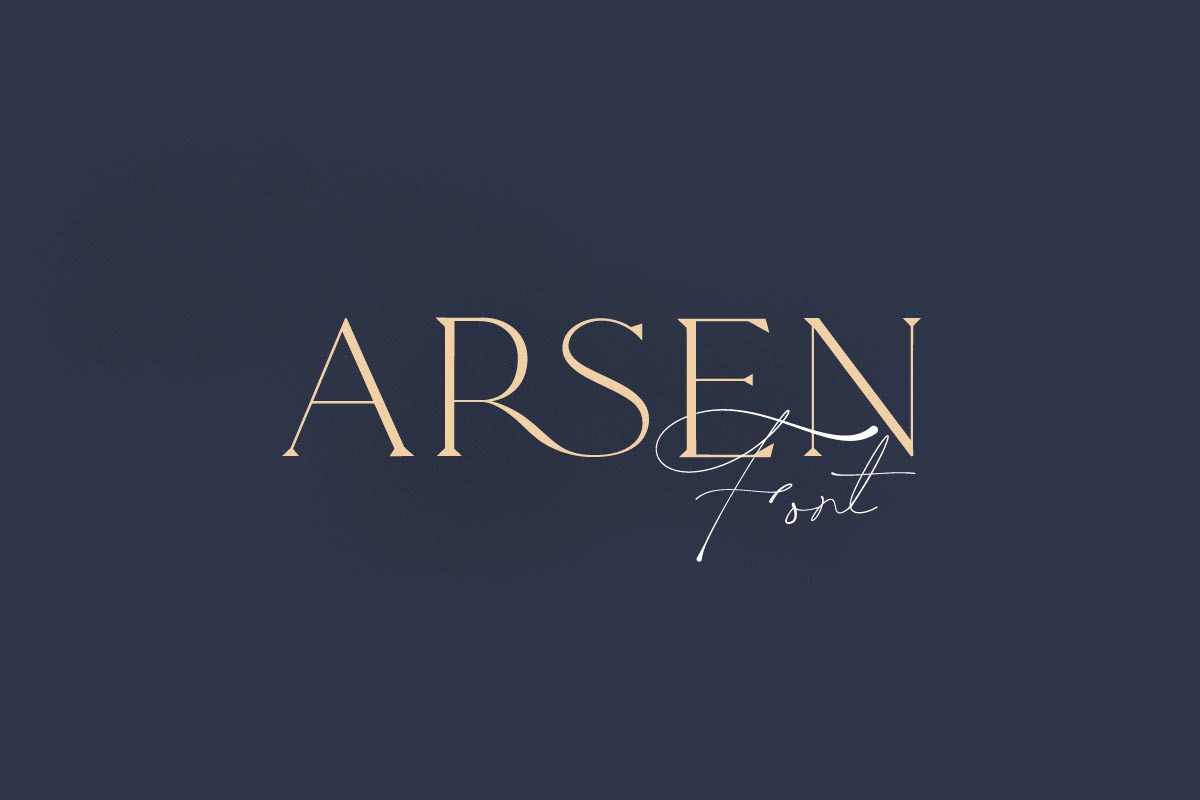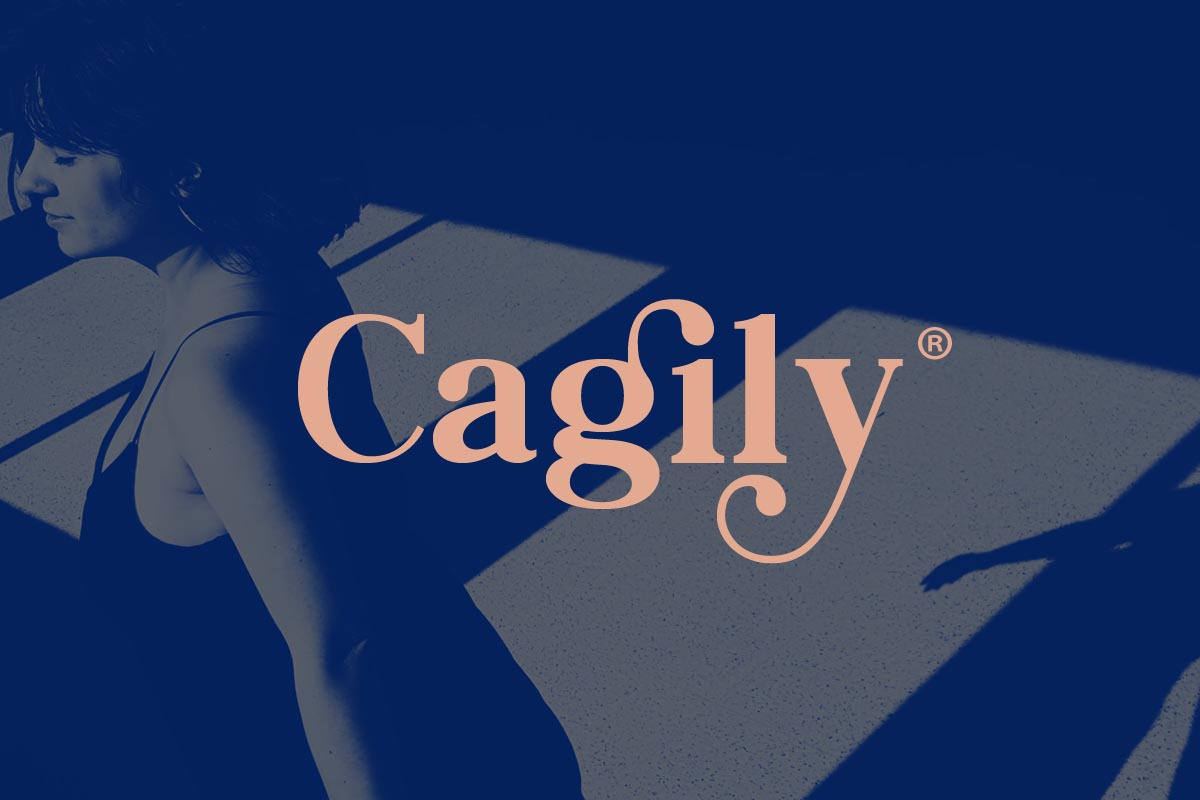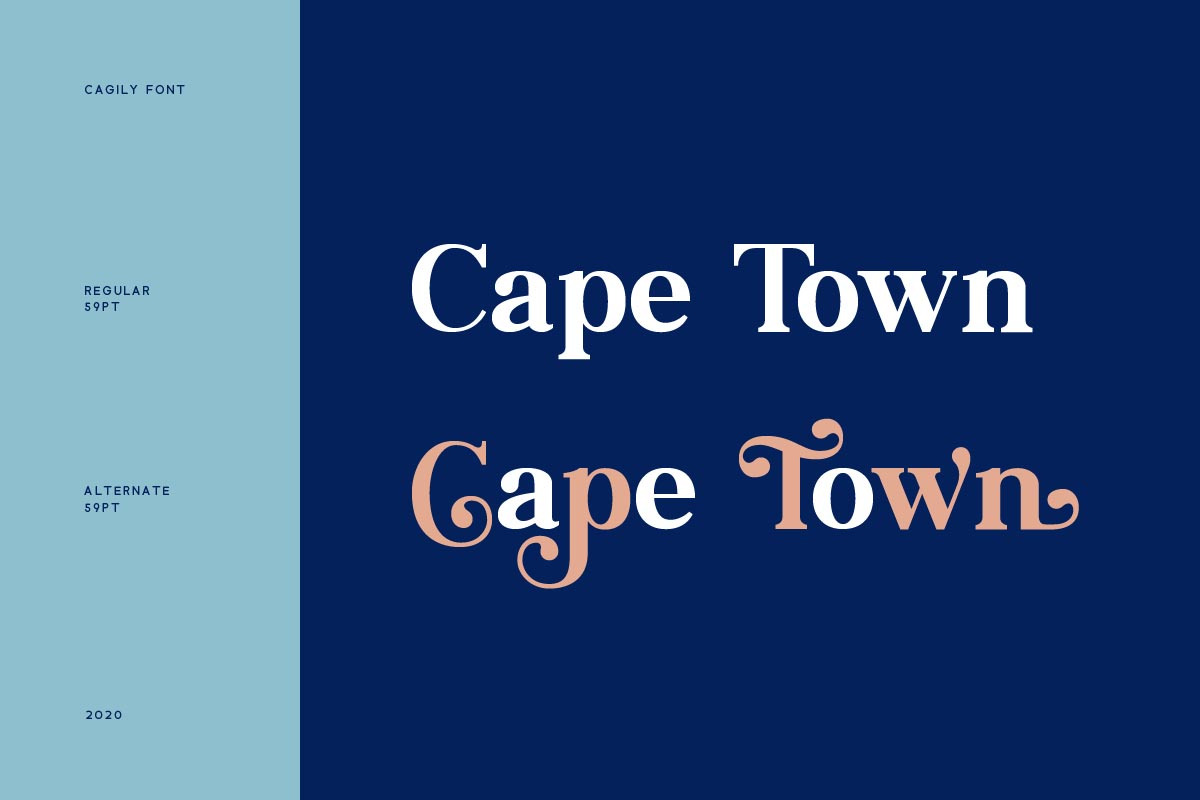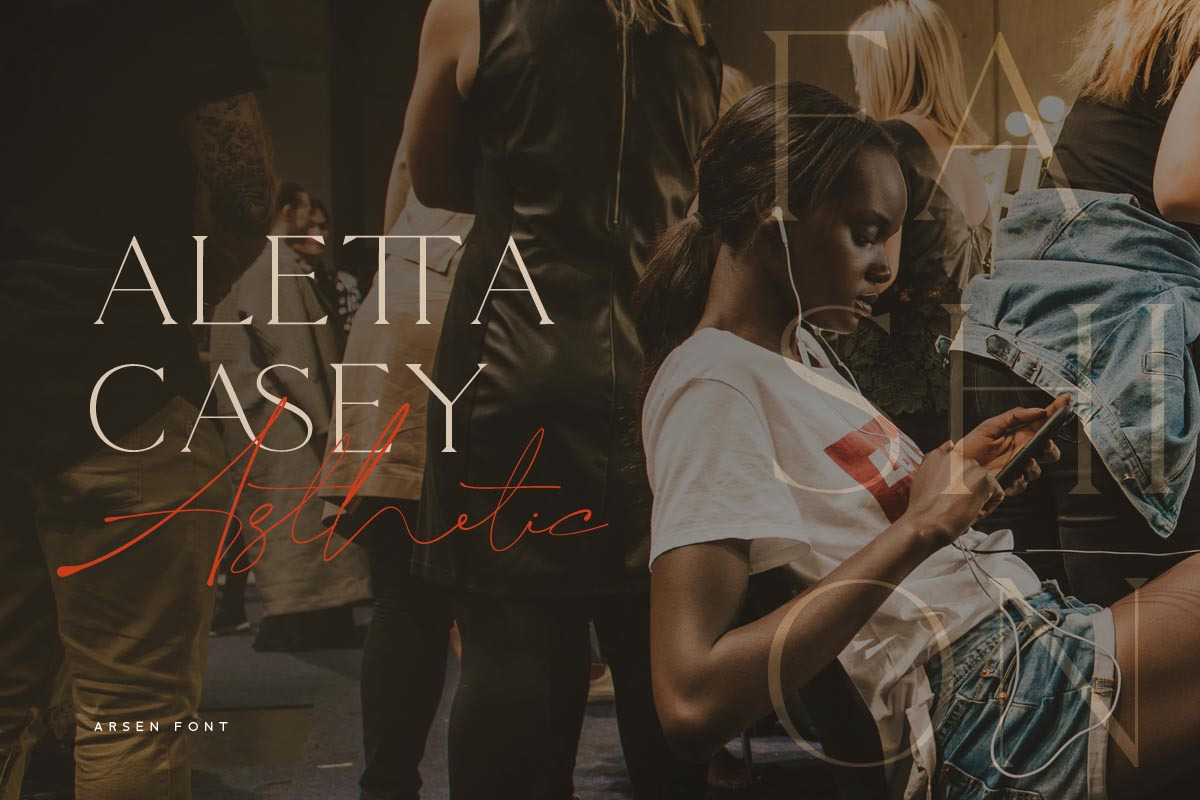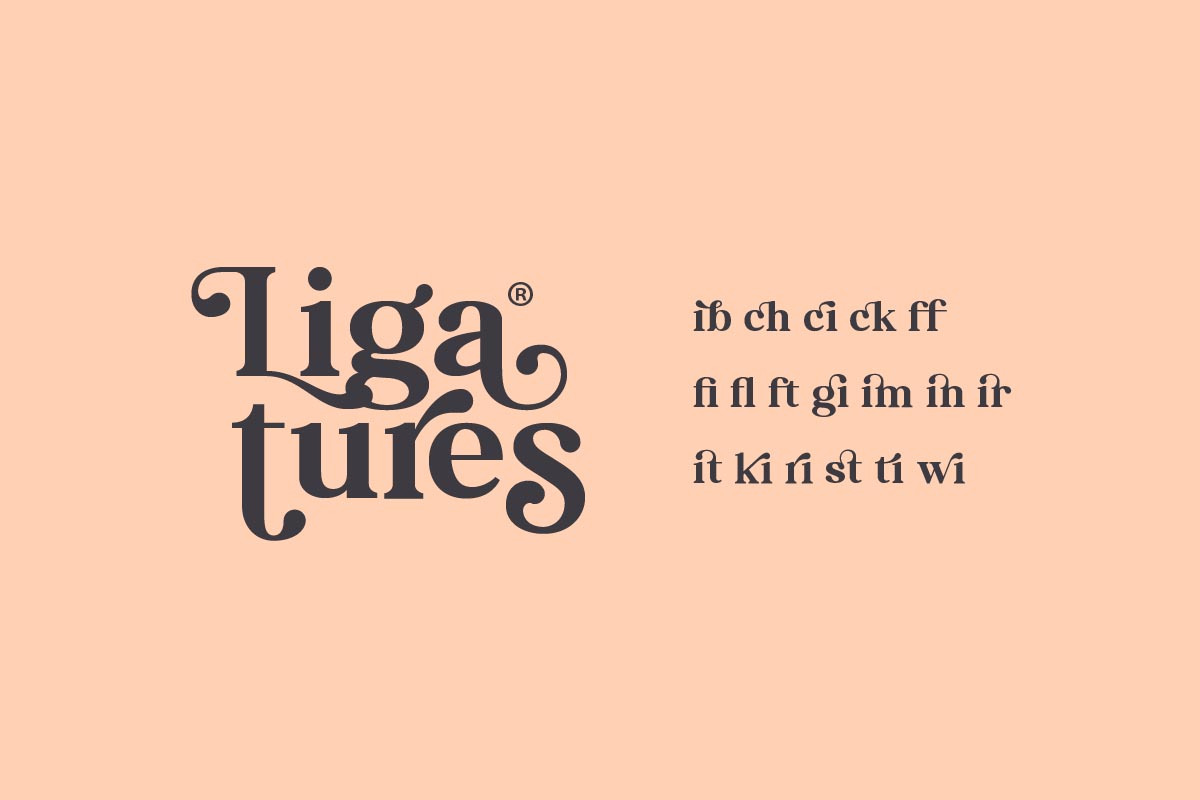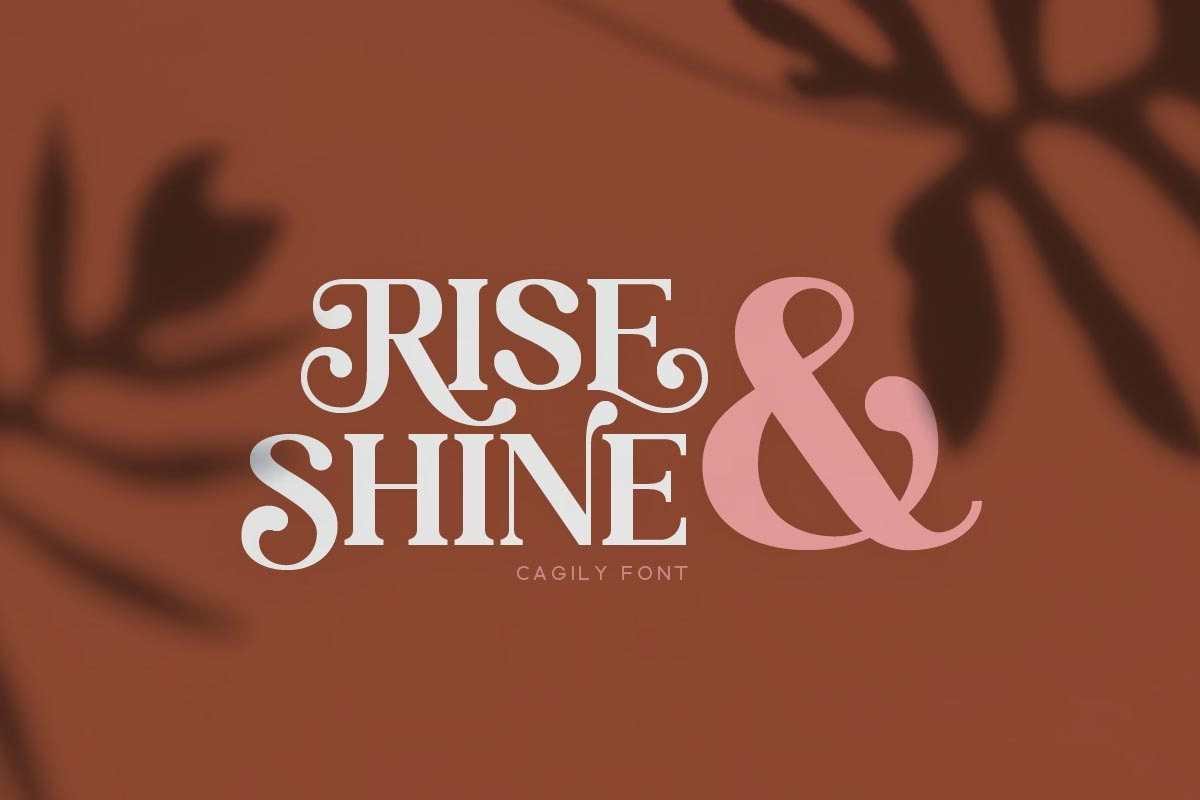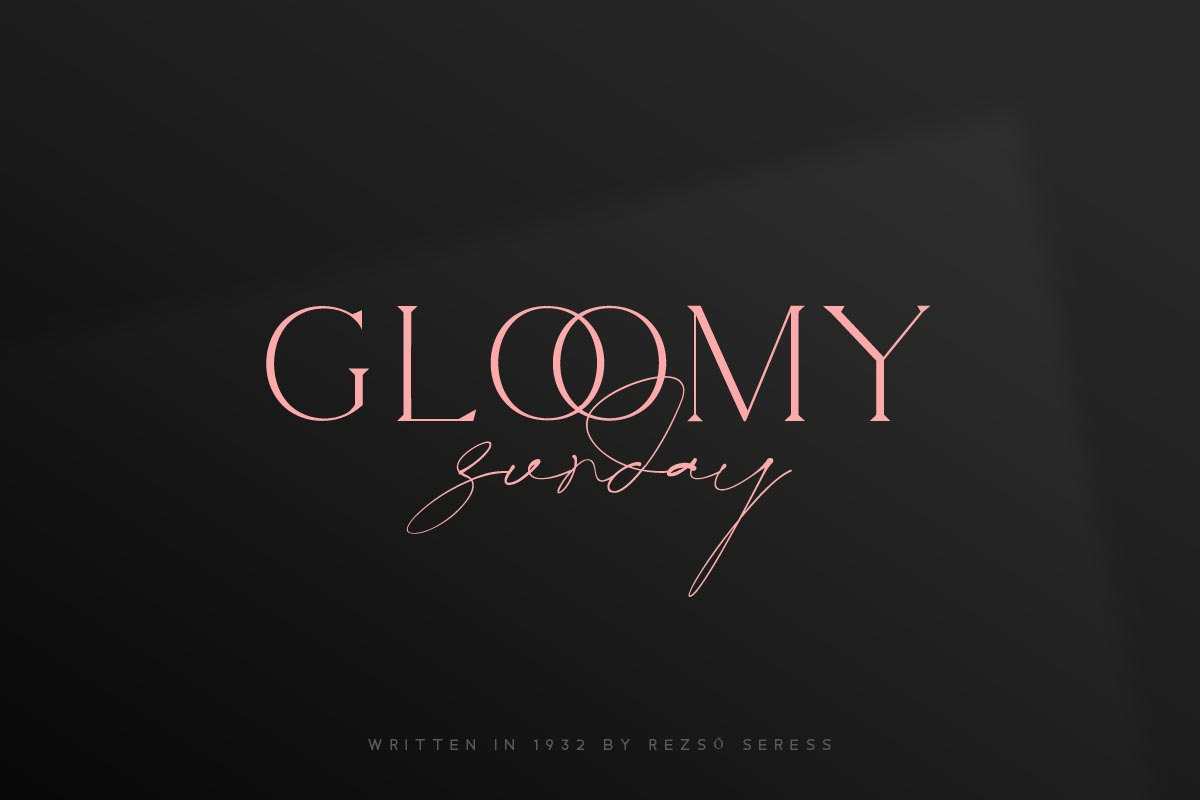
Introducing Minimalist Font Bundle • 80% OFF
Not just contain serif style font, this bundle also contain modern script fonts. Just put the font pair into your project and your design will looks super awesome.
- Cagily:
- Arsen:
- Hi Aline:
- Lavagne:
- Claire:
- Serfict:
- Charles UK:
- Olifer:
Why Minimalist Font Bundle • 80% OFF is worth a look